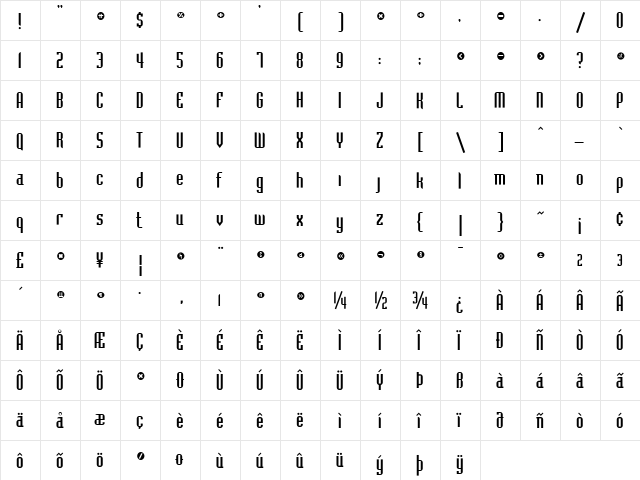
BadlocICG Medium Font Preview
BadlocICG Medium
Design Context for BadlocICG Typeface
BadlocICG offers clean, dependable letterforms without strong stylistic allegiance, making it a practical choice for designers who need flexibility.